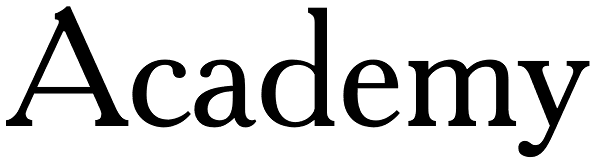
Academy
Academy was designed circa 1910 at the Berthold type foundry (St.-Petersburg). It was based on Sorbonne (H. Berthold, Berlin, 1905), which represented the American Type Founders rework Cheltenham of 1896 (designers Bertram G. Goodhue, Morris F...